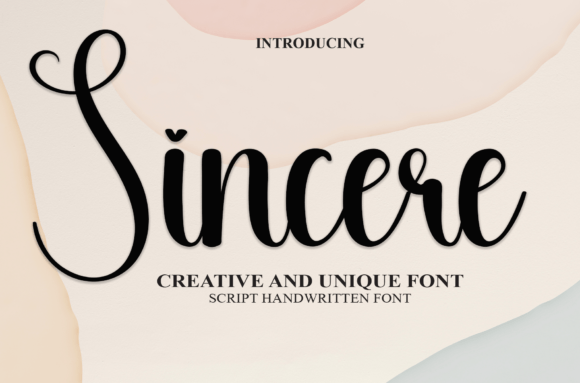
Looking for the perfect font to add a touch of sweetness to your next design project? Look no further than Sincere Font! This delightful script font, created by the talented William Jhordy, is sure to capture your heart.
With its fresh and neat appearance, Sincere Font is perfect for a variety of projects. Whether you're designing wedding invitations, creating beautiful cards, or just need a fun and friendly font for your next web design project, Sincere Font is the perfect choice.
One of the best fonts for web design in 2017, Sincere Font is a must-have for anyone who wants to create eye-catching and engaging designs. Its sweet and friendly handwritten style is sure to capture the hearts of your audience and leave a lasting impression.
With its captivating and emotional appeal, Sincere Font is the perfect choice for anyone looking to add a touch of fun and sweetness to their next design project. Don't miss out on this amazing font – download Sincere Font today and take your designs to the next level!